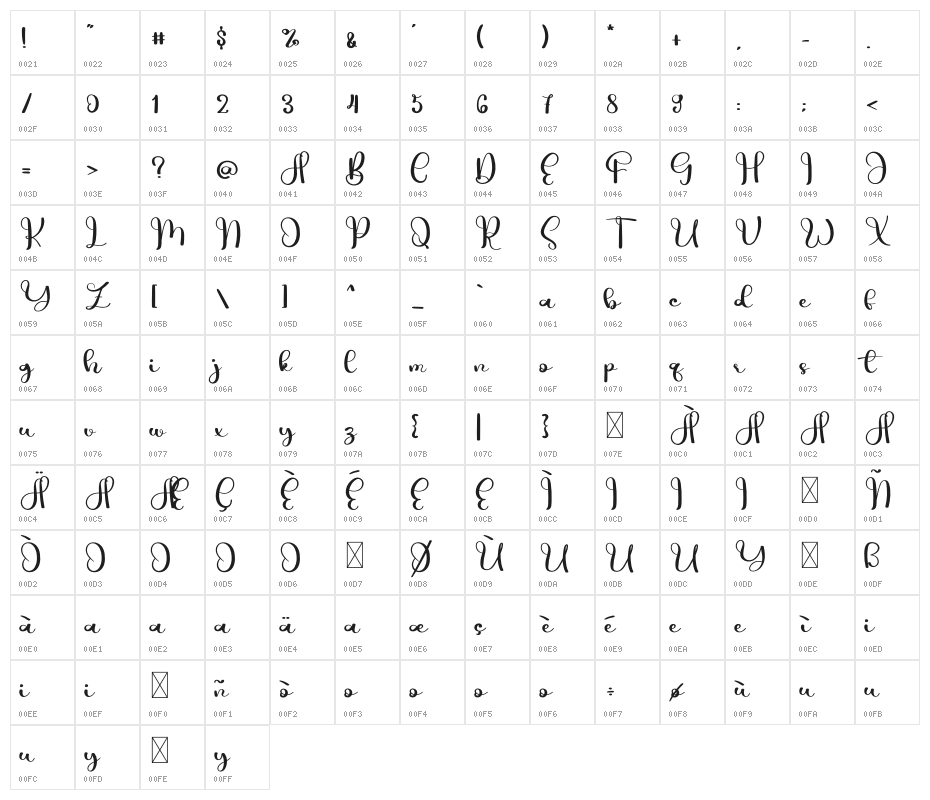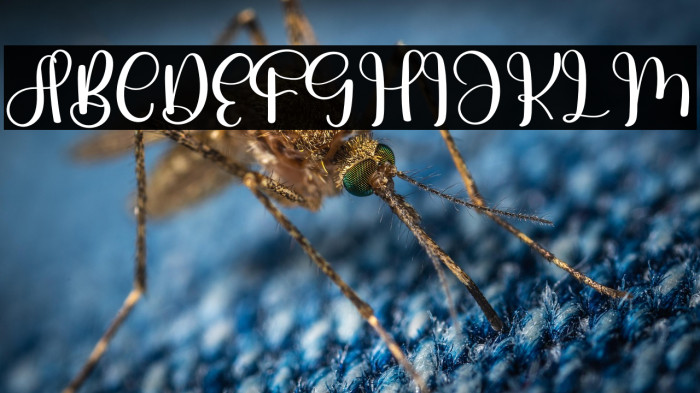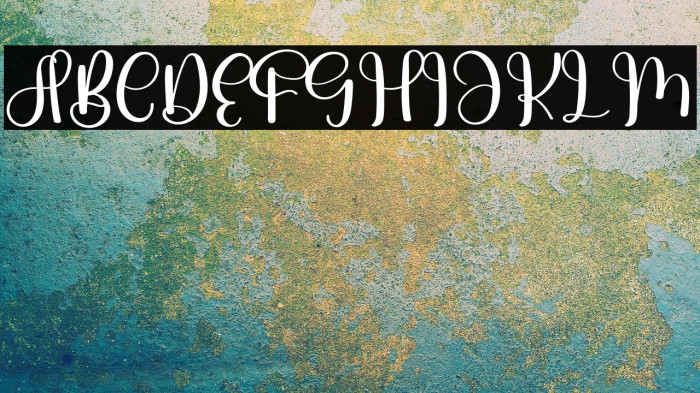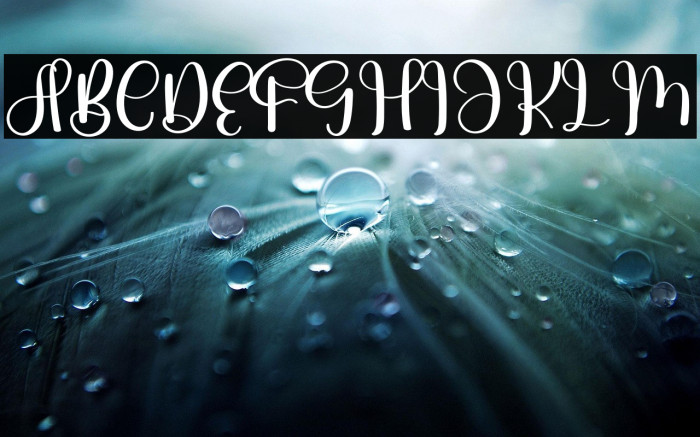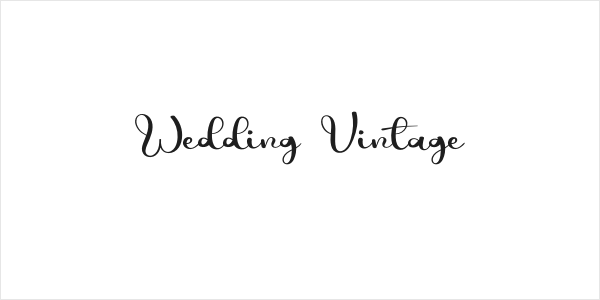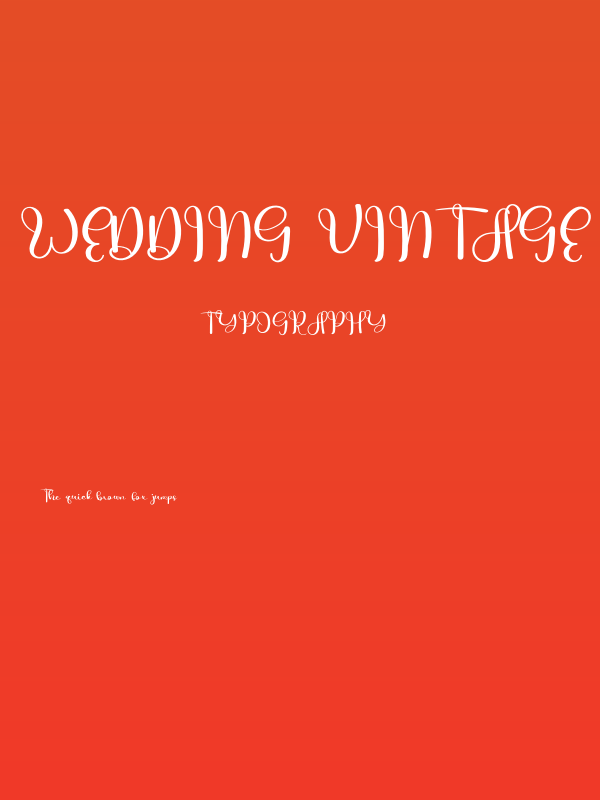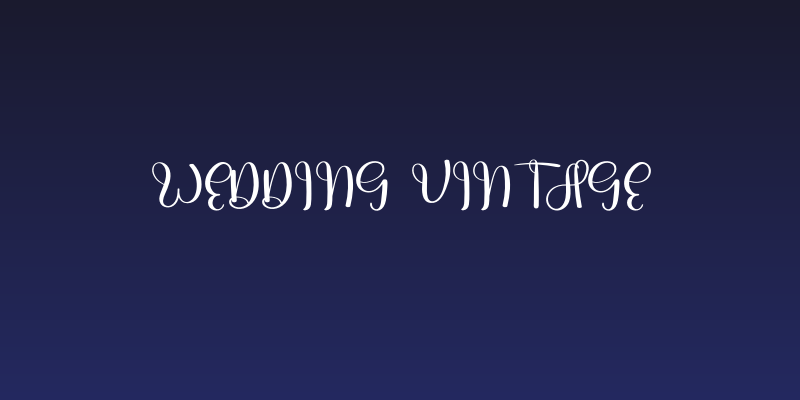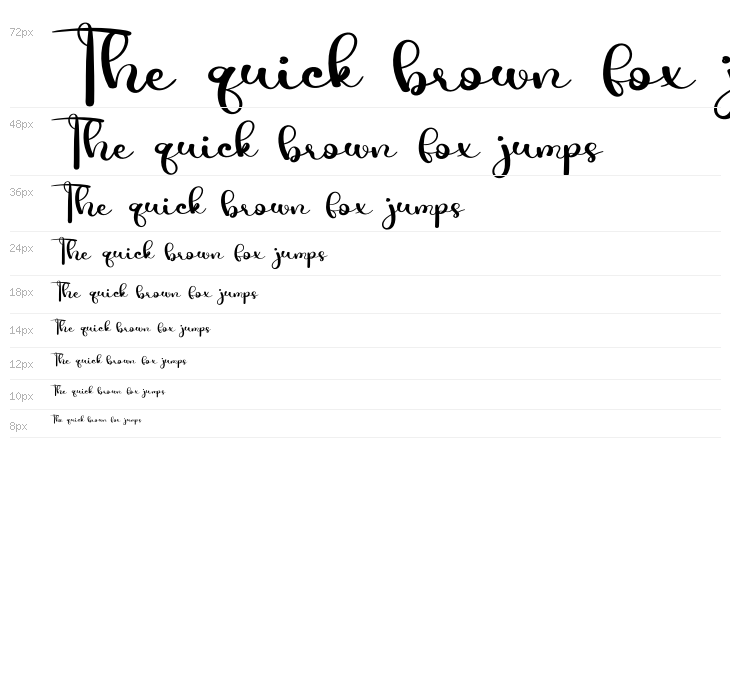
Wedding Vintage Font
Wedding Vintage Description
This font exudes a romantic and elegant charm, characterized by its flowing, cursive style that mimics the fluidity of handwritten script. The uppercase letters are ornate, with loops and swirls that add a touch of sophistication, while the lowercase letters maintain a consistent, graceful flow. The numerals are bold and clear, ensuring readability while retaining the font's decorative nature. Special characters are thoughtfully designed to match the overall aesthetic, making this font ideal for creating a cohesive and stylish look. Its vintage appeal is perfect for projects that require a touch of nostalgia and elegance.
| Proposed Projects | Ideal for wedding invitations, greeting cards, branding, and decorative signage. |